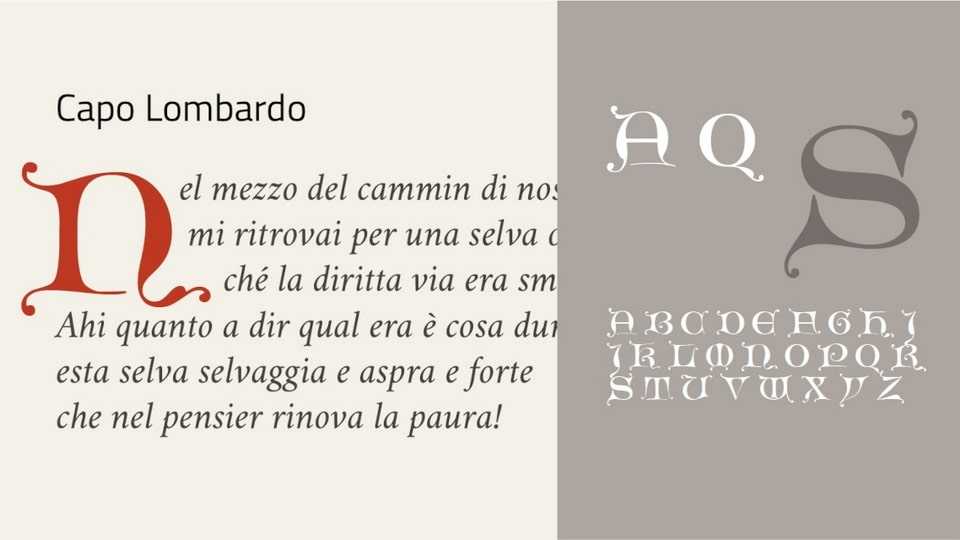
Download Capo Lombardo font, a decorative typeface based on scans of letterhead designs by Alois Studnička (1842-1927). Each character is adorned with delicate serifs, and decorative elements inspired by the artistic craftsmanship of the time.
Designer: Michele Casanova